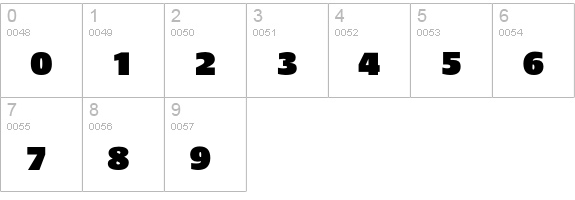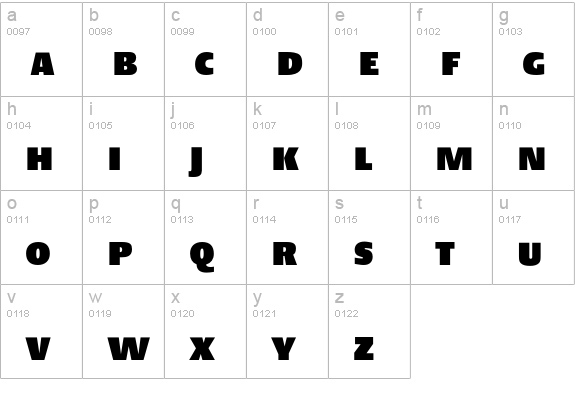
DTLArgoTCaps-UltraHeavy is a bold and powerful display font that commands attention with its striking presence. With its ultra-heavy weight and distinctive design, this font is perfect for making a statement in headlines, posters, and other large-scale designs. The strong and bold letterforms of DTLArgoTCaps-UltraHeavy exude confidence and make a lasting impression on the viewer. Best of all, DTLArgoTCaps-UltraHeavy is available for free download at FontsMarket.com. Whether you're a designer looking to add a bold touch to your projects or someone in need of a font that demands attention, DTLArgoTCaps-UltraHeavy is the perfect choice. Download it today and unleash the power of this impressive typeface in your designs.